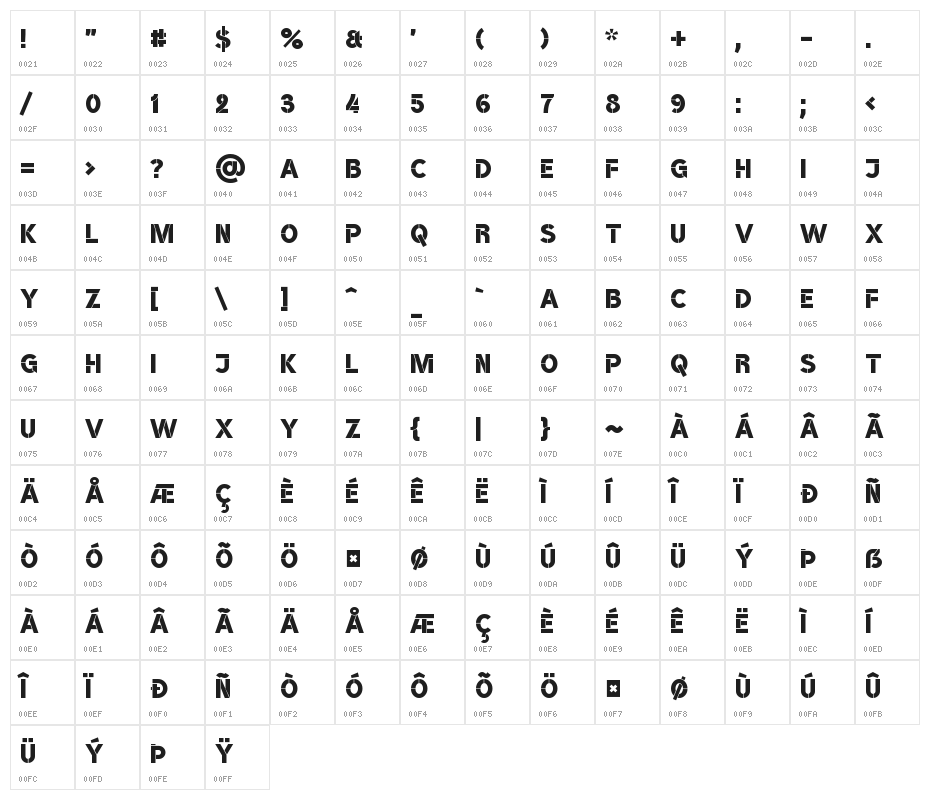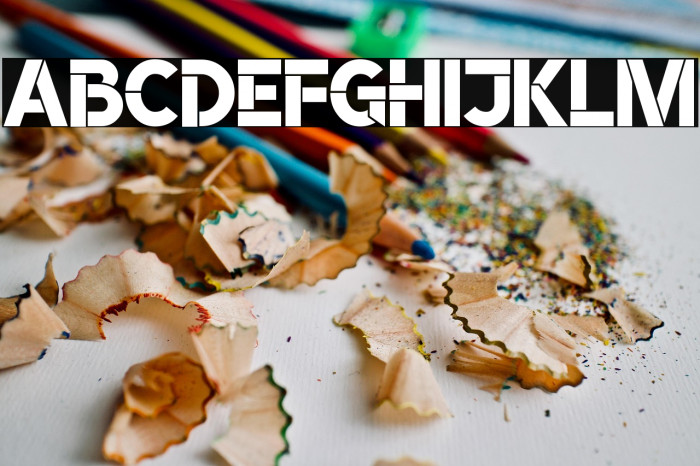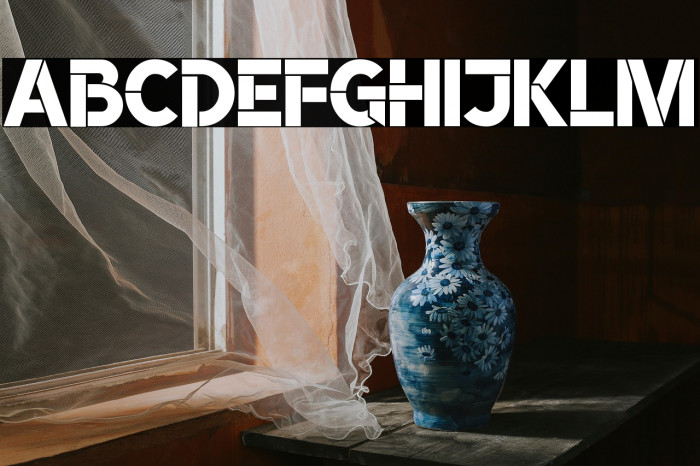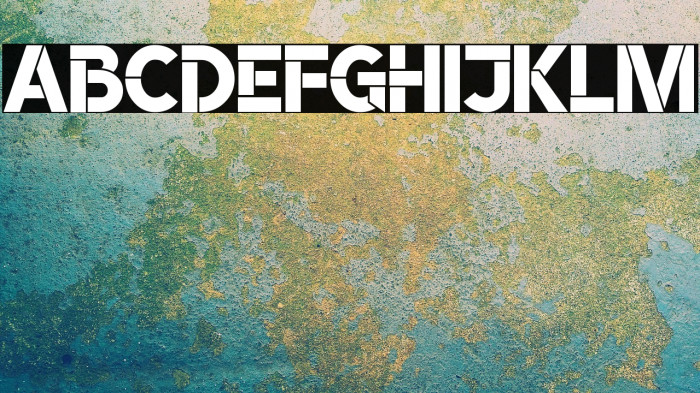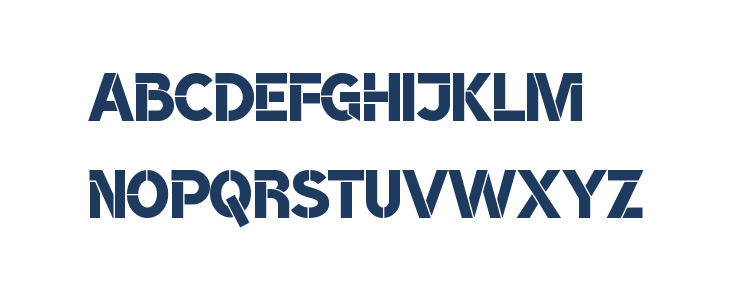
BroshK Font
BroshK Description
This font features a bold, geometric style with a distinct stencil-like appearance. Each character is composed of solid, angular shapes with strategic cutouts, creating a modern and industrial look. The uppercase letters are particularly striking, with consistent height and width, while the numerals and special characters maintain the same boldness and style. The font's design is highly legible, making it suitable for impactful headlines and branding. Its unique aesthetic can add a contemporary edge to any project.
| Proposed Projects | Ideal for branding, posters, headlines, and any design requiring a strong, modern aesthetic. |